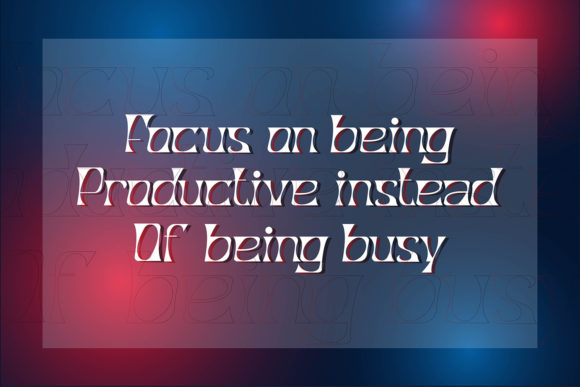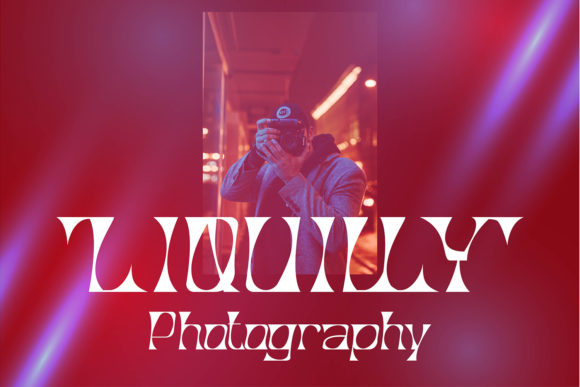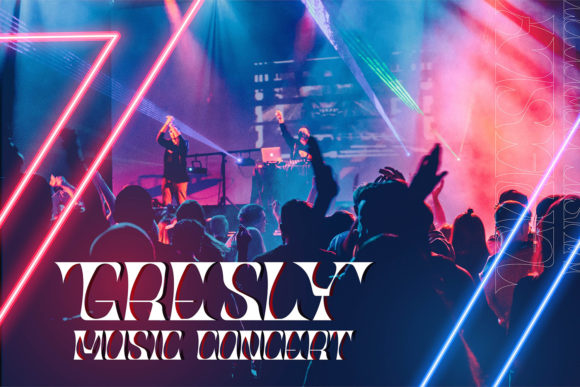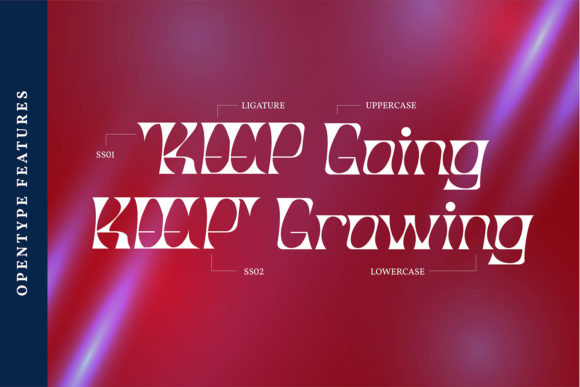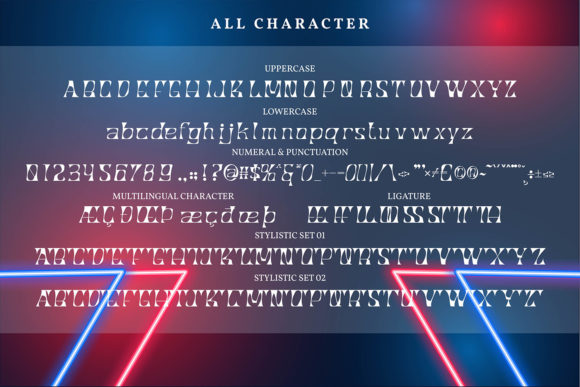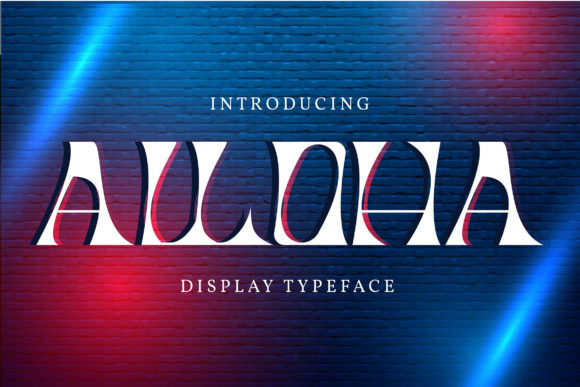
Introducing Alloha Font: Elevate Your Creations with Style and Whimsy
In the world of digital design, fonts play a crucial role in conveying the tone and aesthetic of a project. For designers and crafters looking to add a touch of elegance and playfulness to their work, Alloha Font is an excellent choice. This stylish, whimsical, and modern display font is designed to elevate each of your creations, making it perfect for a wide range of applications.
What Makes Alloha Font Special?
Alloha Font stands out from the crowd with its trendy and stylish design. Its unique blend of modernity and whimsy makes it an ideal choice for designers who want to add a personal touch to their projects. Whether you’re working on a logo, branding materials, social media graphics, or craft projects, Alloha Font is sure to make a statement.
Key Features of Alloha Font
• Stylish and Whimsical Design: Alloha Font boasts a unique and eye-catching design that’s perfect for making a statement.
• Modern Display Font: Its modern aesthetic ensures that your projects look contemporary and fresh.
Alloha Font is not just a font; it’s a tool that can transform your designs and crafts. Designers will love how it adds a touch of sophistication and uniqueness to their work, while crafters can use it to create personalized and visually appealing projects. From DIY enthusiasts to professional designers, Alloha Font offers endless possibilities.
Applications of Alloha Font
The versatility of Alloha Font makes it suitable for a variety of projects, including:
• Logos and Branding: Create memorable logos and branding materials that stand out.
• Social Media Graphics: Elevate your social media presence with stylish and engaging graphics.
• Craft Projects: Add a professional touch to your craft projects, such as handmade cards, invitations, and decorations.
• Digital Art: Use Alloha Font to add text and captions to your digital art pieces.
Why Choose Alloha Font?
Choosing Alloha Font for your projects comes with several benefits:
• Unique Style: Stand out with a font that is both stylish and whimsical.
• Versatile: Suitable for a wide range of projects, from digital designs to craft projects.
• High-Quality: Professionally designed to ensure high-quality results.
Alloha Font is a stylish, whimsical, and modern display font that can elevate your designs and crafts. Its trendy design, combined with PUA encoding for easy access to glyphs and swashes, makes it a valuable tool for designers and crafters alike. Whether you’re looking to create stunning logos, social media graphics, or personalized craft projects, Alloha Font is an excellent choice. Add a touch of style and whimsy to your creations and take your projects to the next level with Alloha Font.